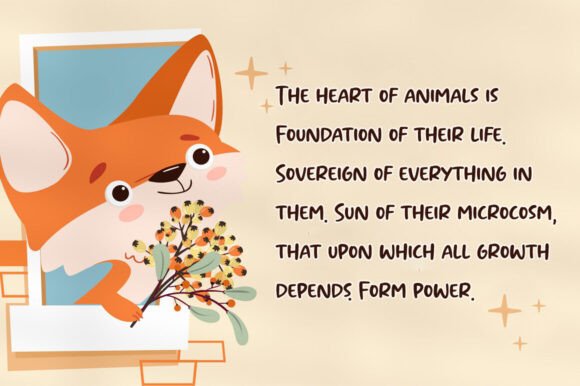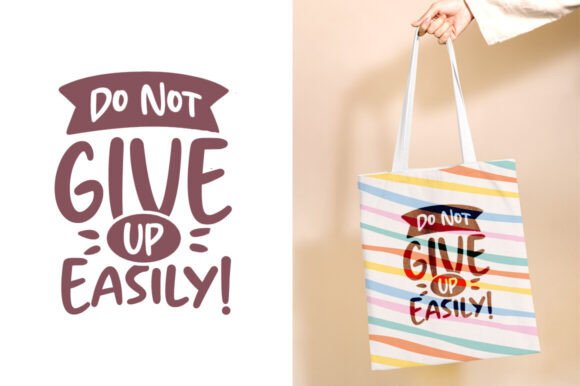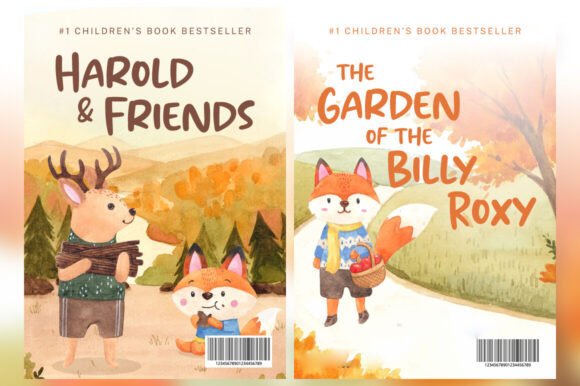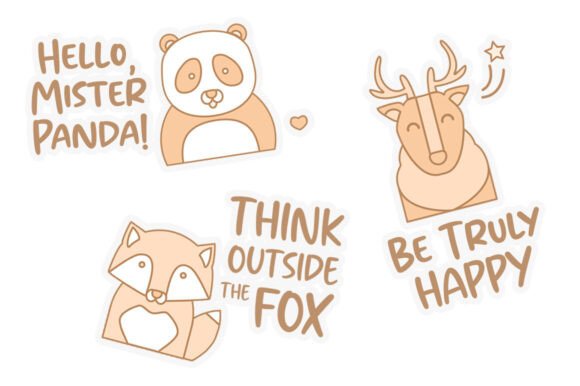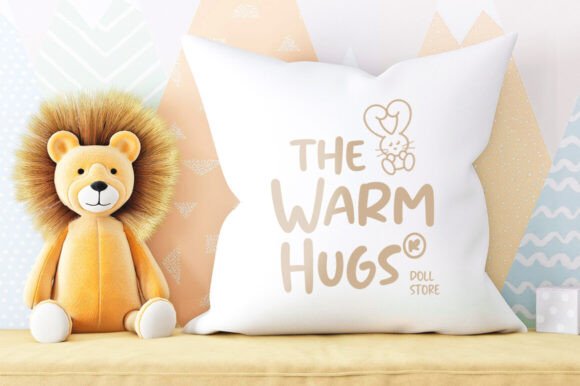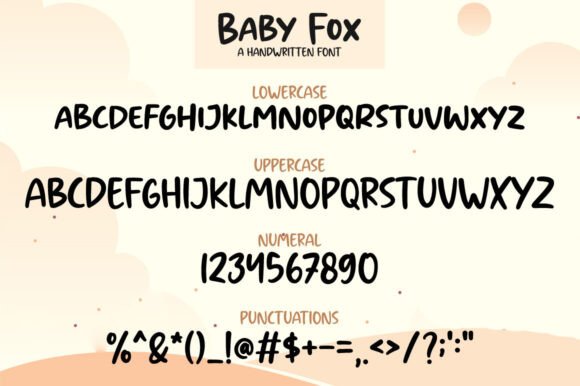
The Art of Whimsy: Discovering the Baby Fox Font
Have you ever stumbled upon a perfectly imperfect quote on a chalkboard in a quaint little café, and suddenly, you’re inspired to create something magical? That’s exactly what happened to me the other day, and it got me thinking about the fonts that bring those whimsical moments to life.
Meet the Baby Fox Font, a delicate and simple-lettered handwritten font that’s perfect for adding a personal touch to your designs. Whether you’re a teacher looking to create engaging teaching materials or a graphic designer seeking to add a touch of realism to your work, this font is sure to delight. Its authentic look will transport your audience to a world of nostalgia and wonder, making it a valuable addition to any designer’s toolkit.
Baby Fox Font Key Features
- Font Family: Baby Fox Font is a unique, hand-drawn font designed to resemble a baby fox’s playful and curious nature.
- Unique Characteristics: Features a mix of rounded and pointed letterforms, giving it a distinctive, whimsical feel.
Baby Fox Font Review
I recently had the chance to work with the Baby Fox Font, and I have to say, it’s a charming addition to any design project. ✨ The font’s whimsical feel and playful characters make it perfect for children’s books, nursery decorations, or any other design that needs a touch of innocence.
Here are some of the things that work well with the Baby Fox Font:
- ✨ Unique character designs: Each letter and symbol in the font has its own distinct personality, adding to the overall charm.
- ✨ Versatile: The font can be used for a wide range of projects, from titles to body text.
- ✨ Customizable: The font offers various font styles and weights, allowing designers to experiment with different looks.
- ⚠️ Limited language support: The font may not support all languages, which could be a problem for international projects.
- ⚠️ Limited font sizes: The font may not be suitable for very large or very small font sizes, which could affect readability.
Overall, I think the Baby Fox Font is a great choice for designers who want to add a touch of whimsy to their projects. While it may have some limitations, its unique character designs and versatility make it a valuable addition to any design library.
Tips for Getting the Most Out of Baby Fox Font
To get the most out of the Baby Fox Font, try the following:
- Use it for whimsical and playful designs, such as children’s books or nursery decor.
- Pair it with bold and bright colors to create a fun and energetic look.
The Baby Fox Font is perfect for:
- Children’s book illustrations and design.
- Nursery decor and